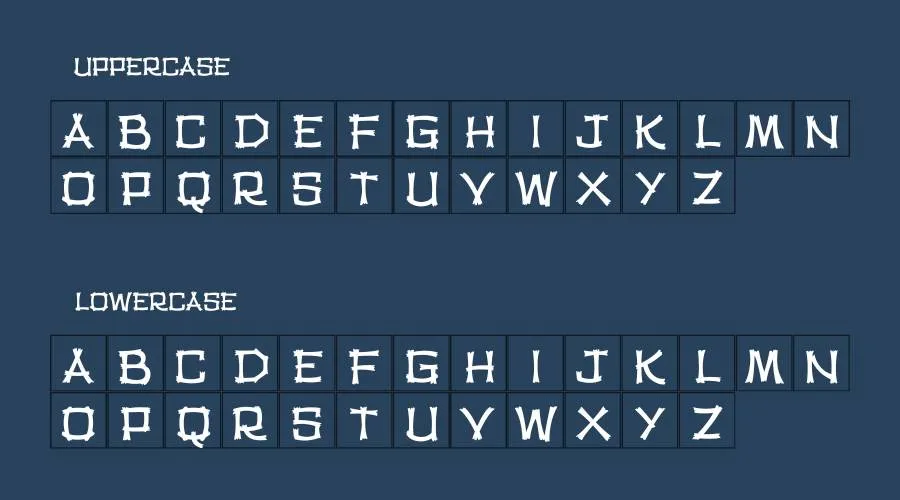
Tiki Hut Font
About Tiki Hut Font
Now, going to present to you a very elegant and eye-catching texture known as the name of Tiki Hut Font. This font was invented by Reg Silva Art with unique and stylish characters. It looks like the fancy texture family and is available in a free version for both systems Windows and Mac.
You can utilize this stunning typeface with sketchy font and create a new shape for your projects. The Tiki Hut typeface has an online generator tool, where you can change all your normal type of alphabet sets into stylish and modern shapes.
After it was published in the font world, it gained popularity in a very short time. Because it has a modern and trendy texture that is suitable for CSS and adobe photoshops.
The subfamily of this texture is regular and contains various types of styles and weights such as Tiki Hut Heavy, Tiki Hut Ultra, Tiki Hut bold, Tiki Hut Hair Italic, Tiki Hut Bold Italic, Tiki Hut ExtraBold Italic, Tiki Hut Heavy Italic, and many more.